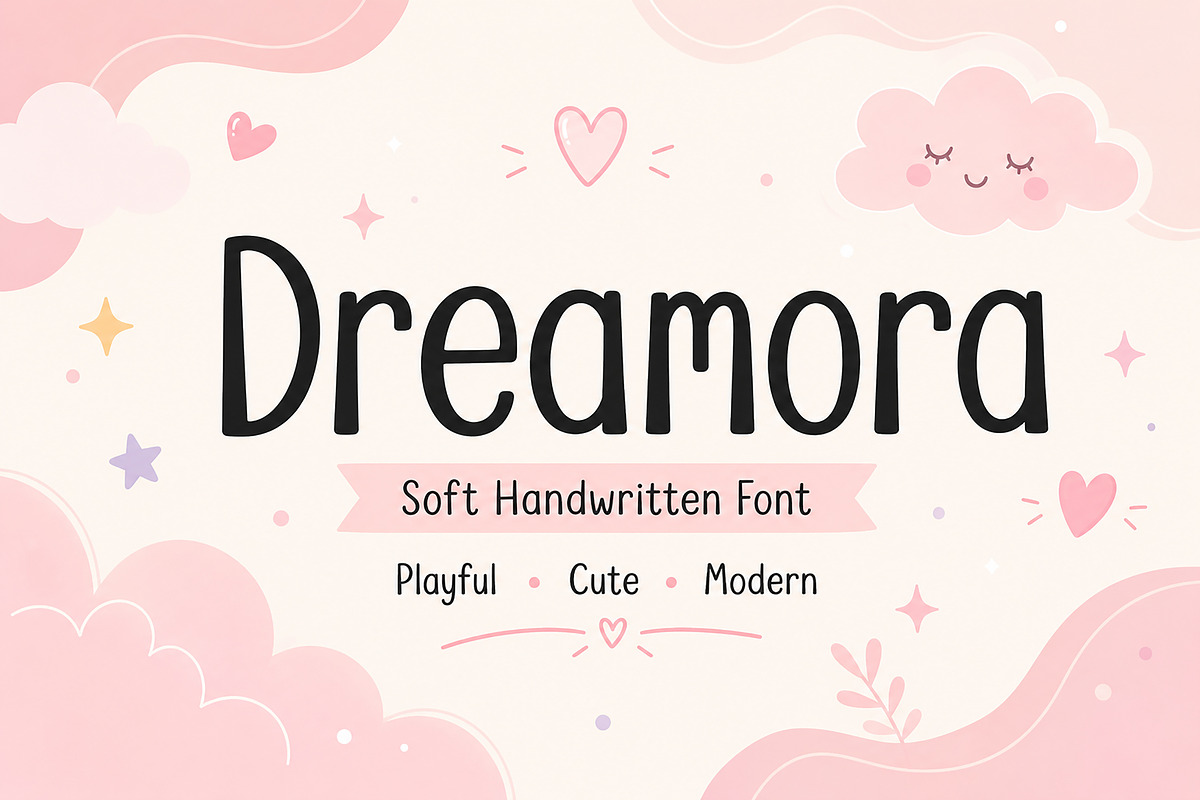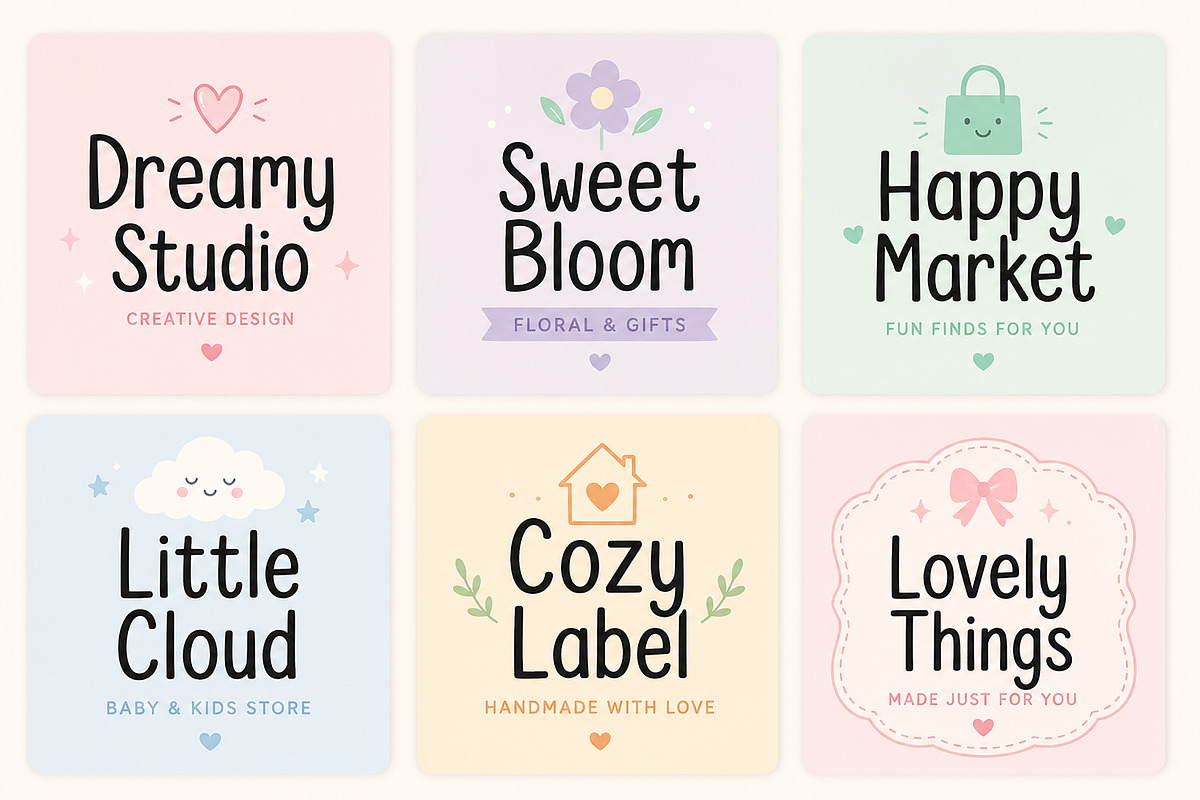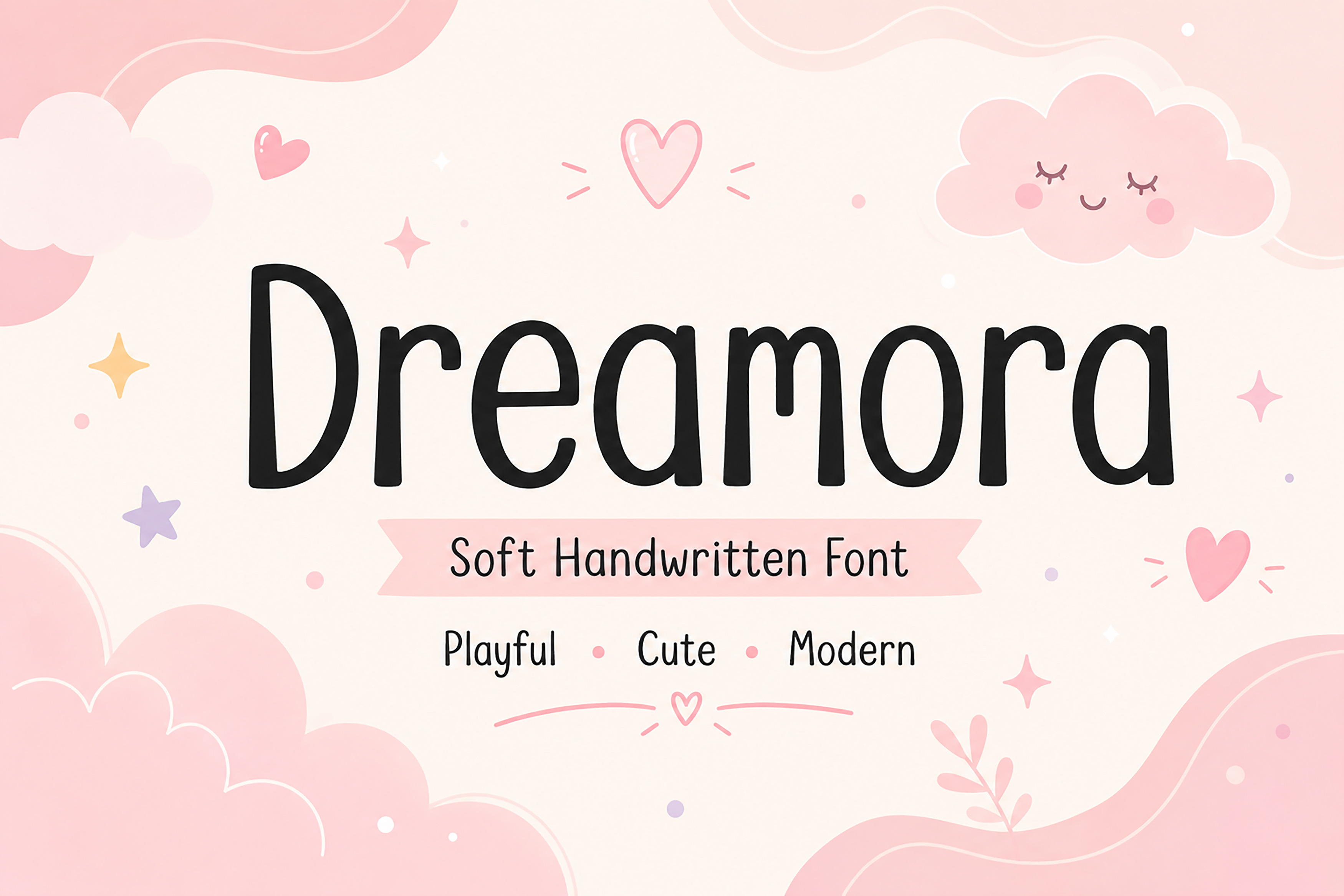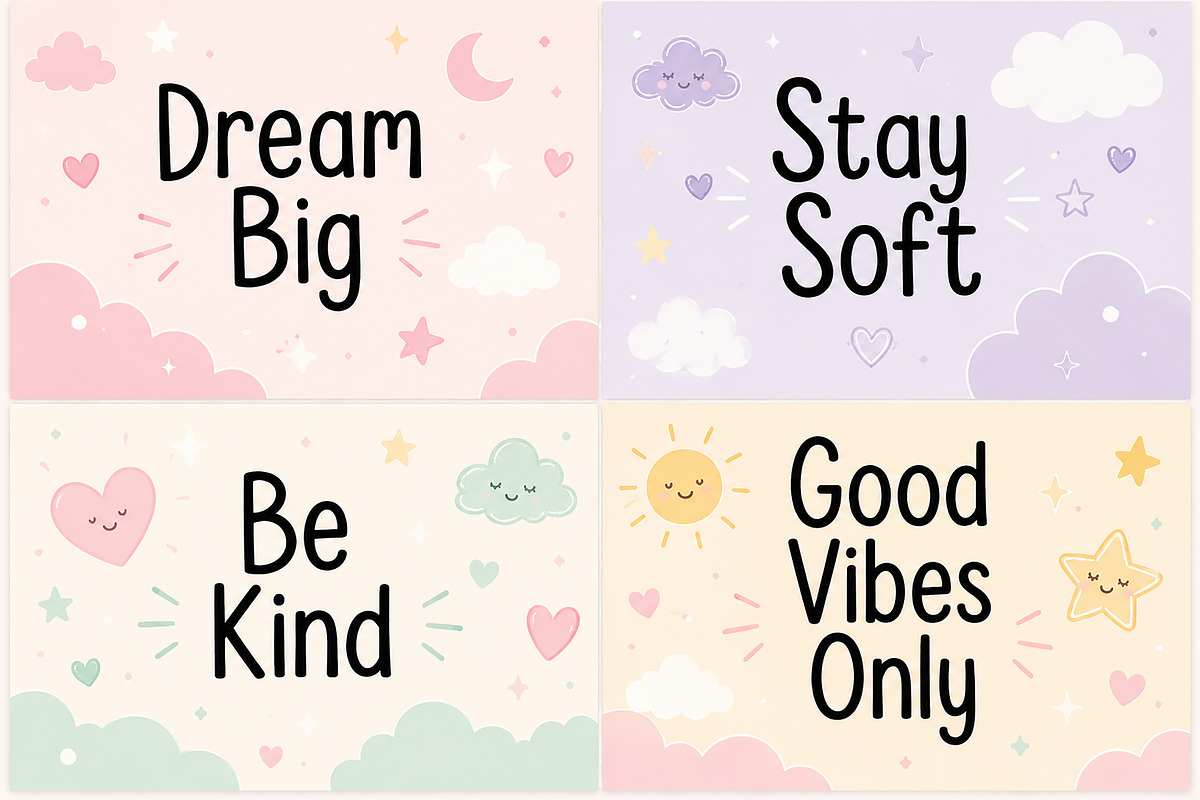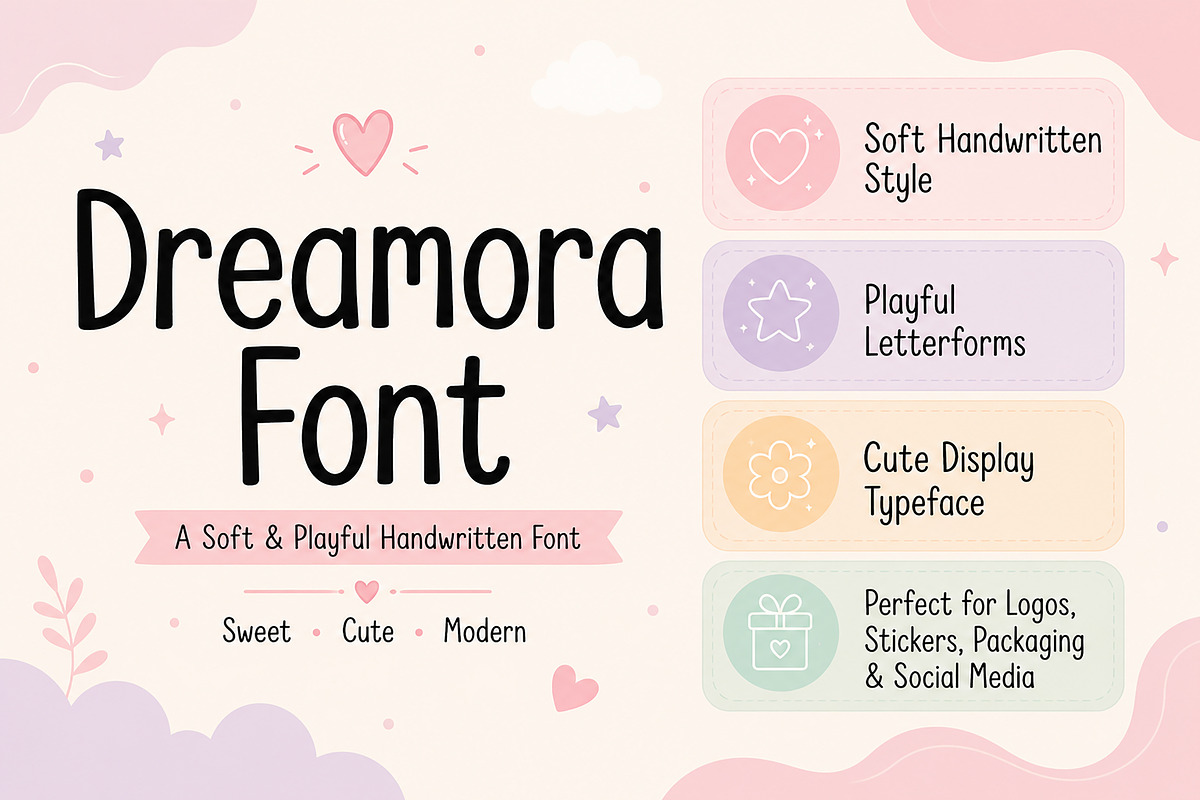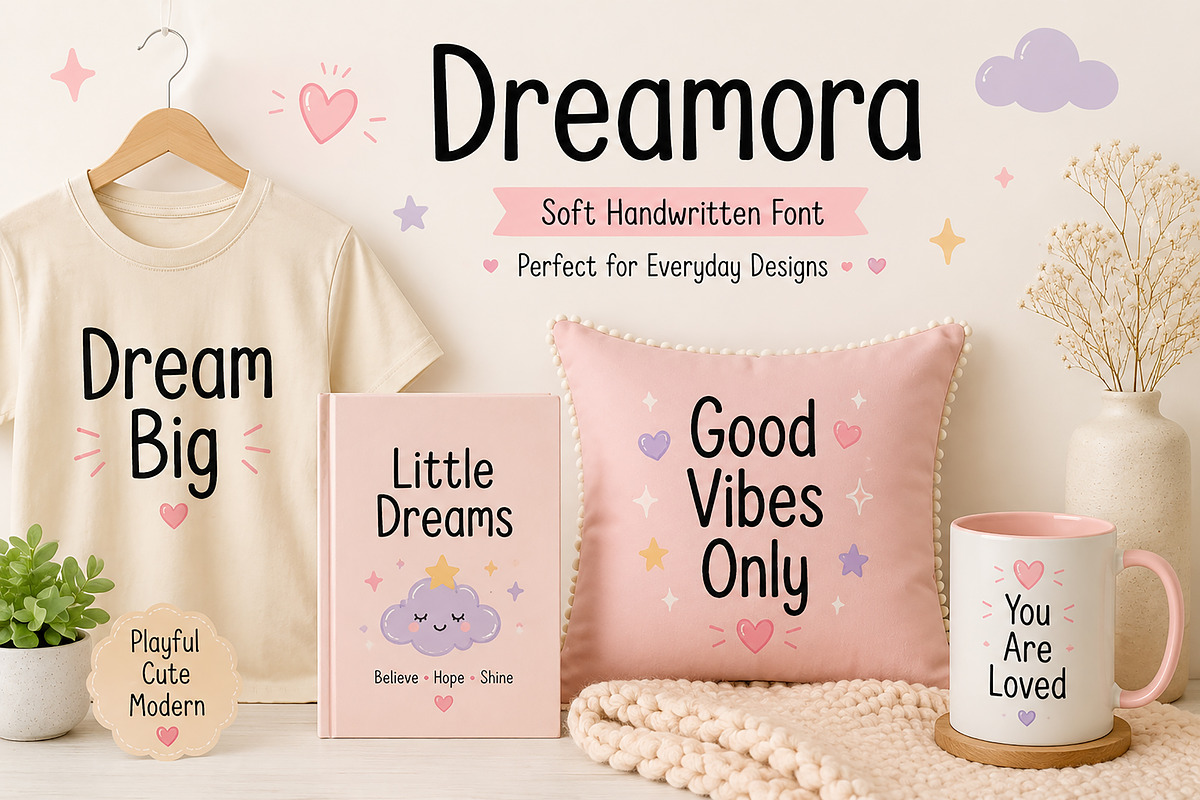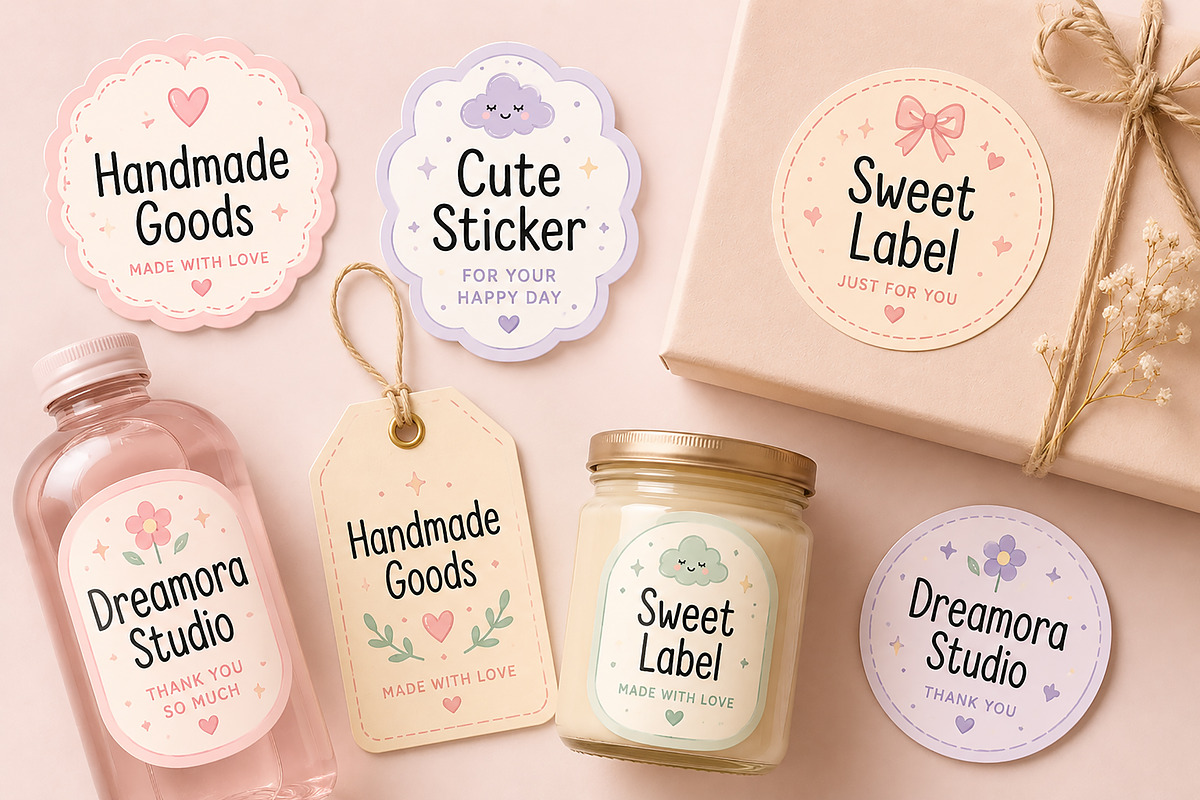
Dreamora – Handwritten Display Font
Dreamora – Soft Handwritten Display Font
Bring warmth, charm, and personality to your creative projects with Dreamora, a soft handwritten display font designed to make every design feel friendly and inviting. Its clean, playful letterforms create a natural handwritten appearance while maintaining excellent readability, making it perfect for both digital and print projects.
Whether you're designing cute branding, product packaging, stickers, social media graphics, or personalized gifts, Dreamora adds a sweet handcrafted touch that stands out beautifully.
Logos & Branding
Stickers
Product Labels
Instagram Posts
Quotes
Greeting Cards
Invitations
Children's Designs
Baby Products
T-Shirts
Mugs
Pillows
Tote Bags
Cricut & Silhouette Projects
Handmade Business Branding
Craft Projects
Digital Planners
Soft Handwritten Style
Clean & Readable Letterforms
Playful Display Typeface
Modern Minimal Look
Beginner Friendly
Perfect for Print & Digital Design
Dreamora is the perfect choice for designers, crafters, small business owners, and content creators looking for a charming handwritten font with a clean and modern personality.